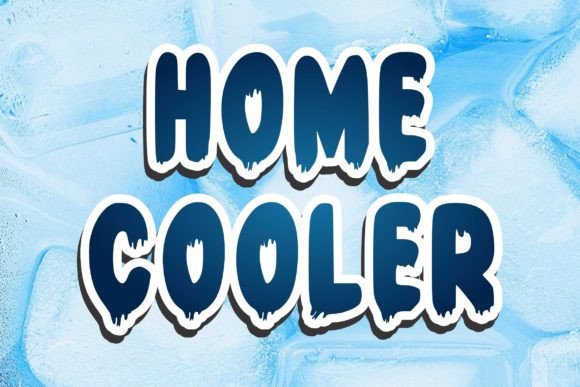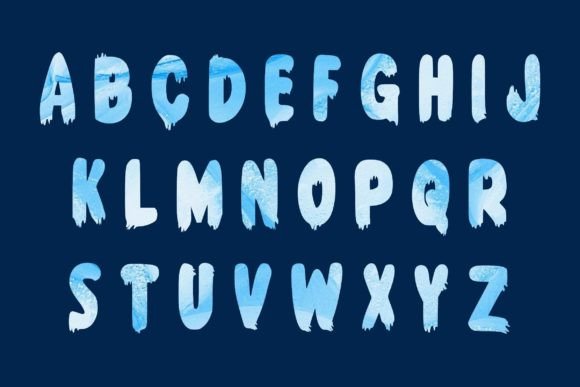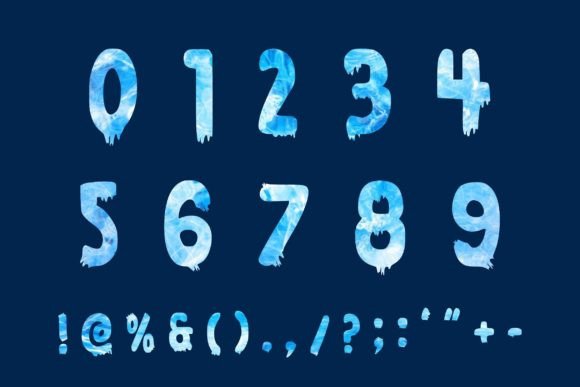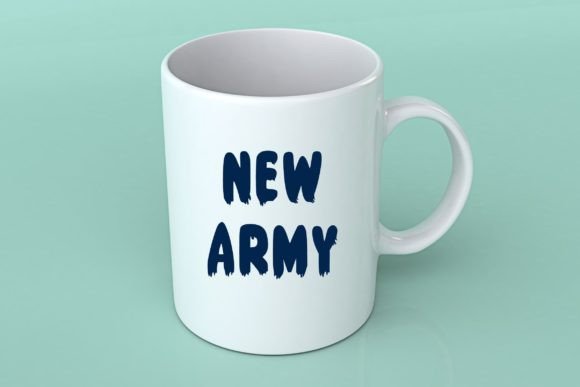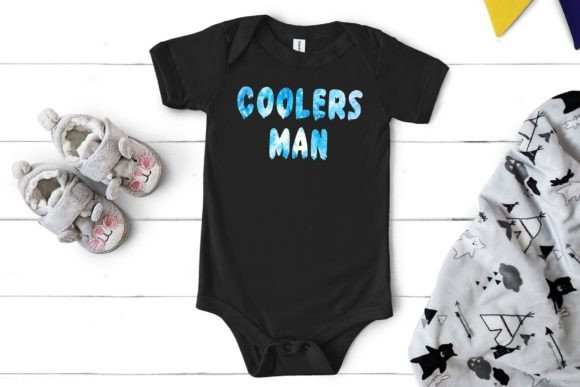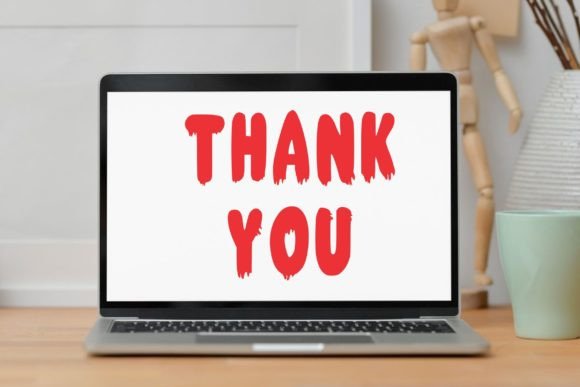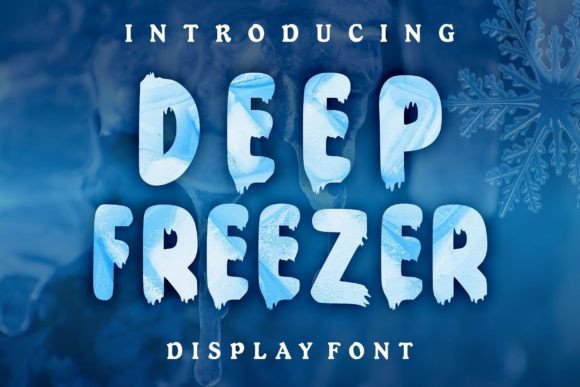
Introducing Deep Freezer Font: The Ultimate Winter Wonderland Decorative Font
Are you looking for a font that captures the magic and fun of winter? Look no further than Deep Freezer Font! This delightful decorative font is perfect for any winter-themed project, from children’s activities to Christmas and Thanksgiving designs, posters, logos, packaging, and school projects. In this article, we’ll dive into the features and benefits of Deep Freezer Font, and explore how it can add a touch of winter wonder to your designs.
What is Deep Freezer Font?
Deep Freezer Font is a fun, lovely, and wintery decorative font that’s sure to bring a smile to your face. Its unique and playful design makes it an ideal choice for any project that requires a touch of winter magic. Whether you’re a designer, crafter, or DIY enthusiast, this font is sure to inspire your creativity and help you create stunning winter-themed designs.
Key Features of Deep Freezer Font
- Winter Wonderland Theme: Deep Freezer Font is specifically designed to capture the essence of winter, making it perfect for any winter-themed project.
- Fun and Playful: This font is designed to be fun and playful, adding a touch of whimsy to your designs.
- Decorative: Deep Freezer Font is a decorative font that’s perfect for adding a touch of elegance and sophistication to your designs.
- Versatile: This font can be used for a wide range of projects, from children’s activities to posters, logos, packaging, and school projects.
Benefits of Using Deep Freezer Font
So why choose Deep Freezer Font for your winter-themed projects? Here are just a few benefits of using this amazing font:
- Adds a Touch of Winter Magic: Deep Freezer Font is designed to capture the essence of winter, adding a touch of magic to your designs.
- Increases Creativity: This font is sure to inspire your creativity, helping you to come up with unique and innovative design ideas.
- Perfect for Kids’ Projects: Deep Freezer Font is a great choice for kids’ projects, such as activity sheets, coloring pages, and school assignments.
- Great for Holiday Designs: This font is perfect for creating stunning holiday designs, from Christmas and Thanksgiving to winter-themed posters and logos.
- Pair with Winter-themed Images: Pair Deep Freezer Font with winter-themed images, such as snowflakes, snowmen, and pinecones, to create stunning winter designs.
- Use for Headings and Titles: Use Deep Freezer Font for headings and titles to add a touch of winter magic to your designs.
- Experiment with Colors: Experiment with different colors, such as blues and whites, to create a winter wonderland effect.
Deep Freezer Font is a fun, lovely, and wintery decorative font that’s perfect for any winter-themed project. With its unique and playful design, this font is sure to add a touch of winter magic to your designs. Whether you’re a designer, crafter, or DIY enthusiast, Deep Freezer Font is a great choice for any project that requires a touch of winter wonder. So why wait? Download Deep Freezer Font today and start creating stunning winter designs!